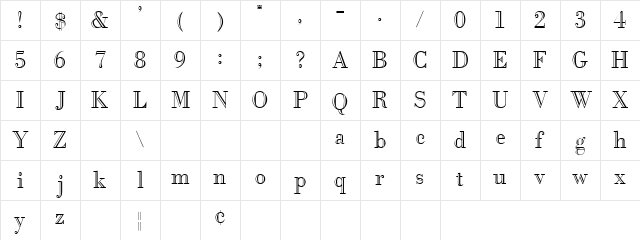
BodoniOpen Normal
BodoniOpen Family
Design Context for BodoniOpen
BodoniOpen is a composed and adaptable typeface that performs quietly and consistently across a wide range of design contexts.